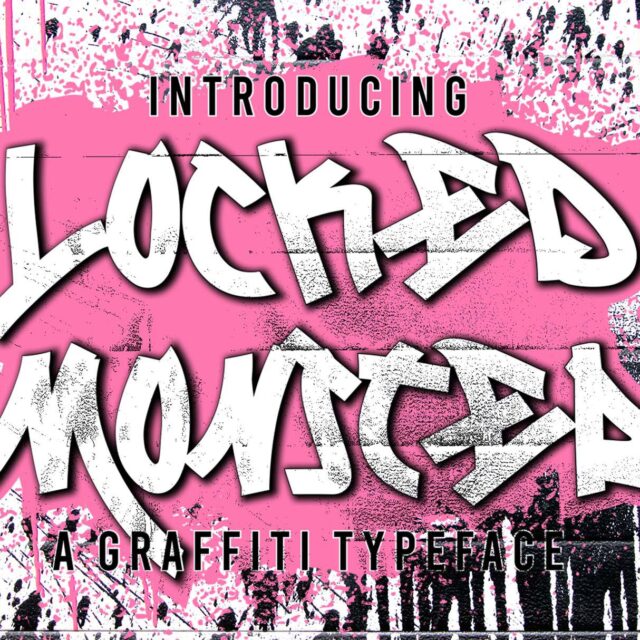
About Locked Monster
“Locked Monster” is a monoline graffiti font. Monoline fonts like this have letter characters with consistent line thickness, often providing a clean and contemporary look. “Locked Monster” can be used in various design projects that require clean and modern typography, including street art, posters, or other designs that want a uniform monoline appearance. With “Locked Monster,” you can create tidy and consistent typography in your designs.